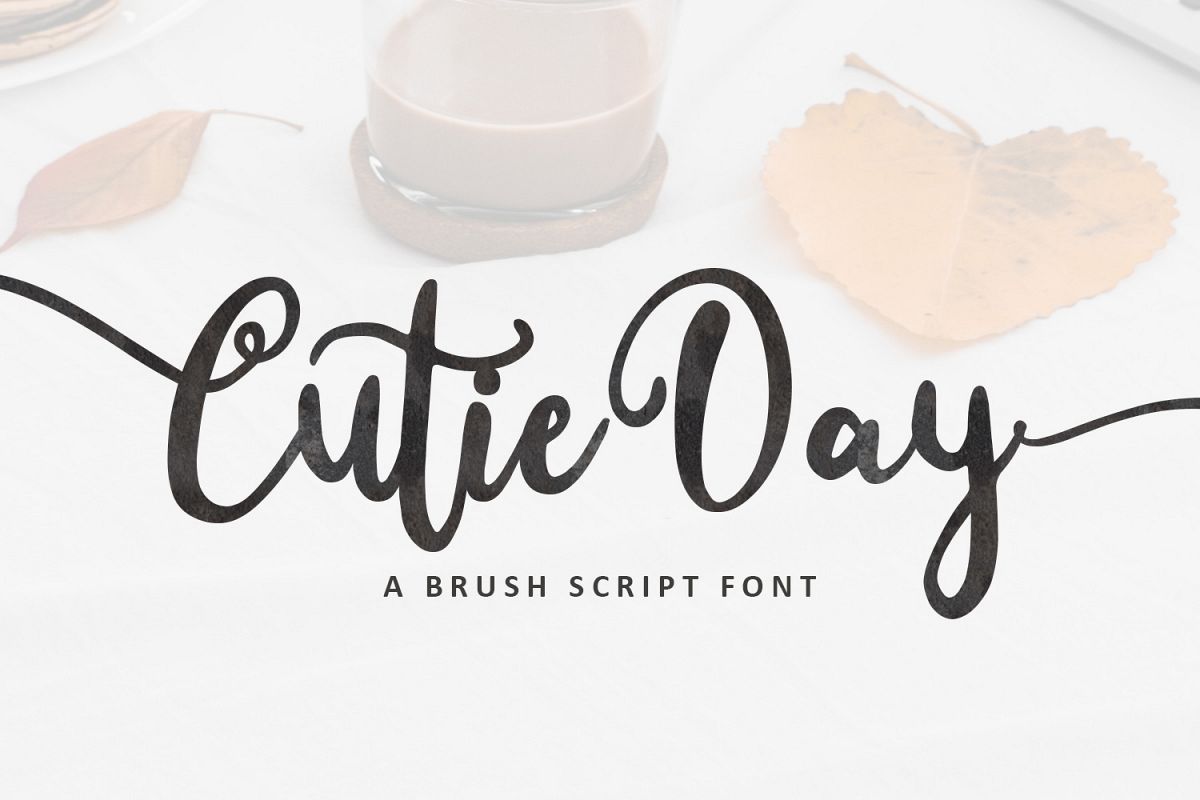
Cutie Day - Cute Script Font
Cutie Day is cute and playful script font. This font will give your designs fresh, cute, and modern feel. Cutie Day font will look lovely on brand, quote, name and all your other lovely projects.
Cutie Day contains standard characters, lowercase, uppercase, numbers, punctuation, ligatures, international characters and stylistic set as opentype feature.